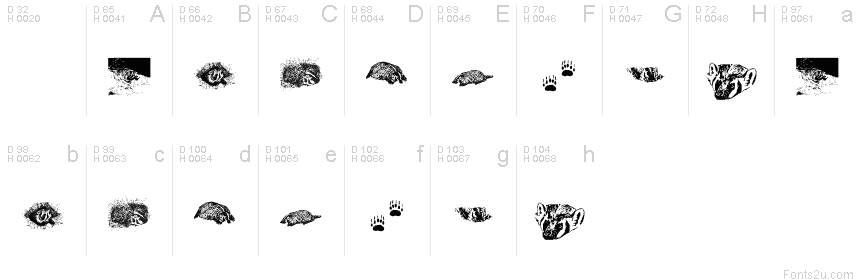
KR Crystal's Badgers
KR Crystal's Badgers font by Katsfunfonts is a free animal dingbat typeface. Each glyph is a detailed, inky illustration of badgers in different poses, from curled-up sleepers to alert foragers, rendered with rough, scratchy texture that feels hand-stamped rather than computer-drawn. The dense black-and-white shading holds up nicely at larger sizes, giving your layouts a wild, woodland character with very little effort.
Using KR Crystal's Badgers, you can quickly drop unique badger art into posters, nature worksheets, wildlife zines, eco-campaign materials, scrapbooking pages, or T-shirt graphics. This free font shines when the illustrations are set large and paired with a clean sans serif for text, letting the gritty, organic line work stay center stage.